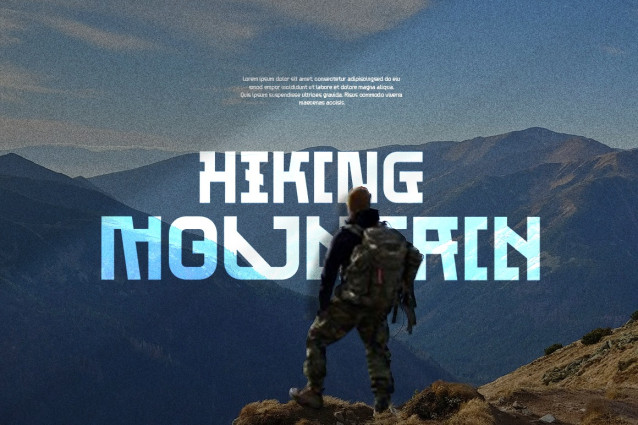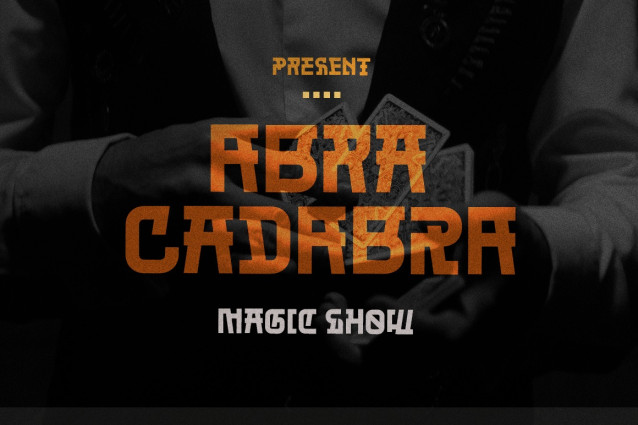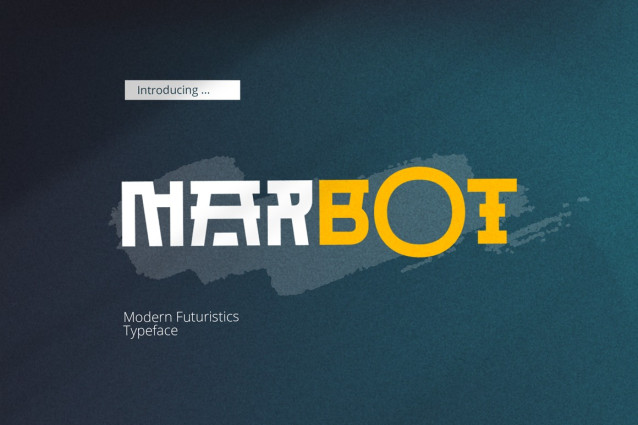
Marbot Font
Introducing Marbot. A striking decorative sans-serif font that seamlessly blends modern aesthetics with a futuristic touch. Its bold, tough, clean lines and innovative design elements make it an excellent choice for projects that require a contemporary and forward-thinking appearance.
Marbot’s versatility shines through in its ability to convey both elegance and a cutting-edge vibe, making it perfect for logotype, branding, headlines, digital interfaces, and any creative endeavors where a bold and stylish typographic statement is needed. This font is sure to captivate and engage, setting the tone for a modern and sophisticated visual identity.
Features:
• Regular Bold Font
• Basic Latin Glyphs
• Unique All Caps Font
• ligatures & Alternates
• Numeral and Punctuation
• Currencies
• Multilingual Support